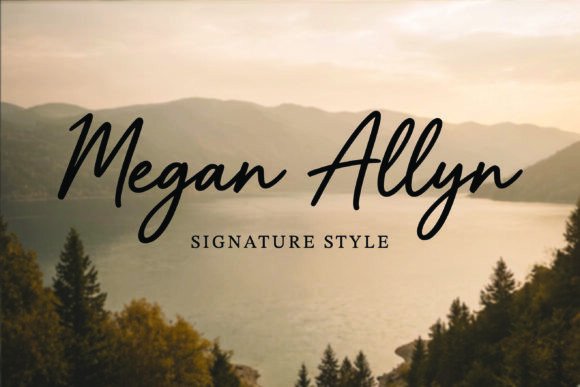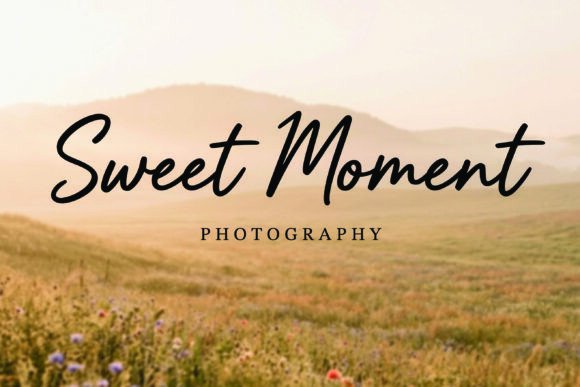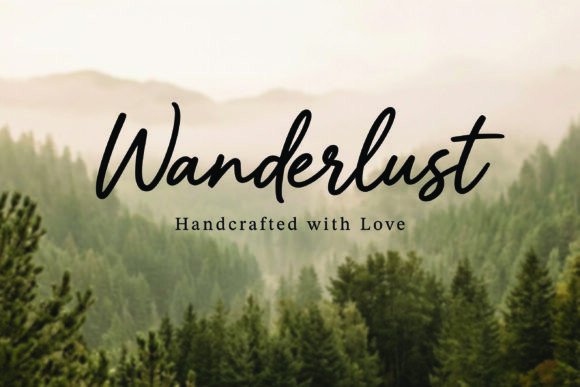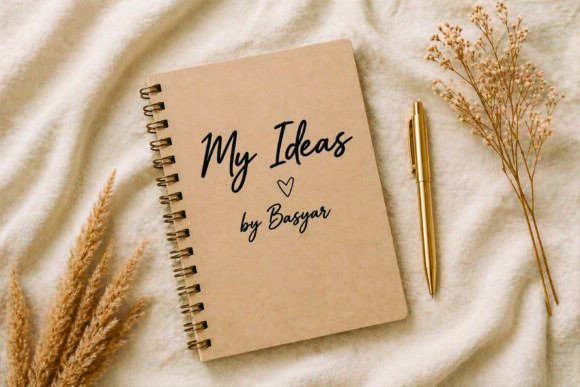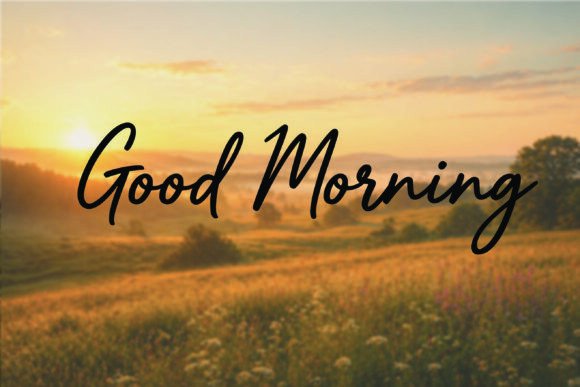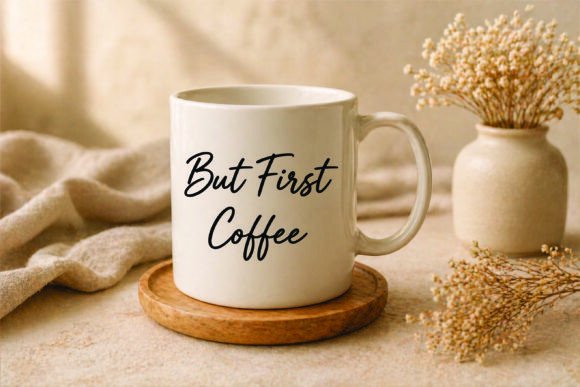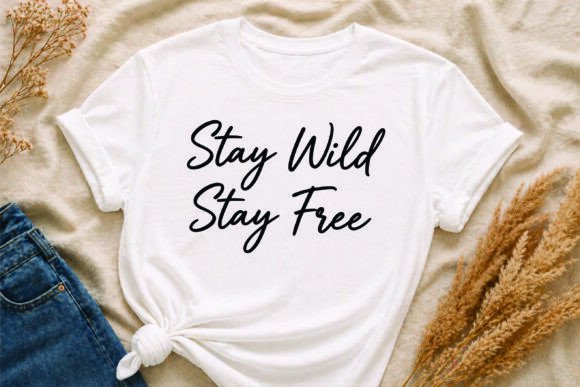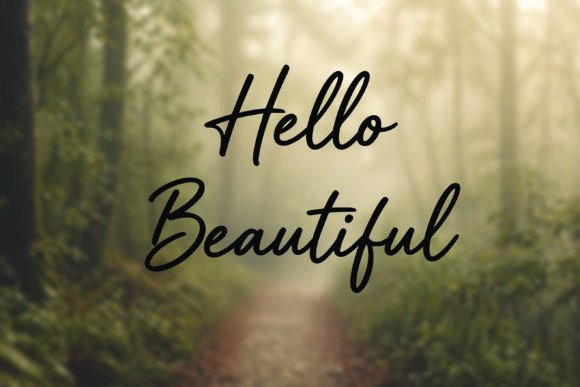
Megan Allyn Script Fonts
Infuse your projects with the refined poise of Megan Allyn, a contemporary script that bridges the gap between organic movement and editorial precision. Designed to mimic the effortless glide of a bespoke autograph, this typeface delivers an intimate, human-centric aesthetic while maintaining impeccable legibility. Whether you’re crafting a premium brand identity or a delicate editorial layout, its fluid rhythm and polished execution provide a sophisticated finish that feels both spontaneous and perfectly composed.